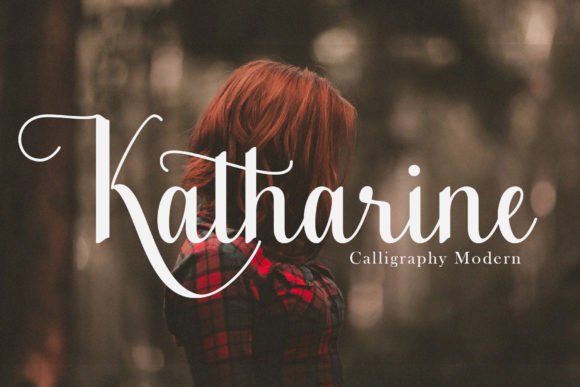
Katharine Font: Elevate Your Creative Projects with Elegance
In the world of typography, few fonts manage to capture the essence of elegance and creativity as effectively as the Katharine Font. This magical handwritten font has been carefully crafted to bring a touch of sophistication to any project, making it an ideal choice for those looking to elevate their creative endeavors. Whether you’re a social media enthusiast seeking fonts for Instagram or a DIY enthusiast in search of calligraphy scripts, Katharine Font is designed to transform your ideas into true pieces of art.
The Story Behind Katharine Font
The Katharine Font is more than just a collection of letters; it’s a tool for self-expression. Its creation was inspired by the desire to produce a font that combines elegance with a personal touch. The result is a typeface that feels both luxurious and approachable, making it versatile for a wide range of applications. From professional branding to personal projects, Katharine Font offers the perfect blend of style and functionality.
Key Features of Katharine Font
1. Elegant Handwritten Style
Katharine Font boasts an elegant handwritten style that adds a personal and sophisticated touch to any text. Its fluid strokes and graceful letterforms make it stand out in a sea of digital content.
2. Versatility
One of the key strengths of Katharine Font is its versatility. It can be used for a variety of purposes, from social media posts and personal blogs to professional branding and marketing materials.
3. Easy to Read
Despite its elegant and artistic nature, Katharine Font remains highly legible. This ensures that your message is conveyed clearly and effectively, making it suitable for both digital and print applications.
Using Katharine Font for Instagram and Social Media
In today’s digital age, standing out on social media platforms like Instagram is crucial. The Katharine Font can help you achieve this by adding a touch of elegance to your posts and stories. Here are some ways you can use Katharine Font to enhance your social media presence:
1. Create Eye-Catching Post Captions
Use Katharine Font to craft beautiful and captivating captions for your Instagram posts. Its elegant style will make your content more engaging and visually appealing.
2. Design Stunning Stories
Instagram stories are a great way to connect with your audience. With Katharine Font, you can create visually stunning stories that reflect your personal or brand aesthetic.
3. Enhance Your Brand’s Visual Identity
Consistency is key to building a strong brand. By using Katharine Font across your social media platforms, you can create a cohesive and recognizable visual identity for your brand.
Katharine Font in DIY Projects
Beyond digital applications, Katharine Font can also be a valuable asset for DIY enthusiasts. Its calligraphy-like qualities make it perfect for a variety of handmade projects. Here are some ideas:
1. Handmade Cards and Invitations
Add a personal touch to your greeting cards and invitations with Katharine Font. Its elegant style will make your creations feel more special and thoughtful.
2. Customized Home Decor
From wall art to personalized banners, Katharine Font can be used to create beautiful and unique home decor items. Its elegant style will add a touch of sophistication to any room.
3. Journaling and Scrapbooking
For journaling and scrapbooking enthusiasts, Katharine Font offers a beautiful way to add titles, captions, and journaling to your pages. Its artistic style will enhance your creative projects and make them more visually appealing.
Tips for Getting the Most Out of Katharine Font
To fully leverage the potential of Katharine Font, consider the following tips:
1. Experiment with Colors and Textures
Don’t be afraid to experiment with different colors and textures when using Katharine Font. This will help you find the perfect combination that matches your project’s theme and aesthetic.
2. Mix and Match with Other Fonts
For added visual interest, try mixing Katharine Font with other complementary fonts. This can create a dynamic and engaging look, especially in digital and print designs.
3. Pay Attention to Font Size and Spacing
To maintain readability, pay attention to font size and spacing. Ensure that your text is large enough to be easily read, and adjust the spacing between letters and lines as needed.
Katharine Font is a versatile and elegant handwritten font that can elevate any creative project. Whether you’re looking to enhance your social media presence, create stunning DIY projects, or simply add a touch of sophistication to your designs, Katharine Font is an excellent choice. Its combination of elegance, versatility, and readability makes it a valuable asset for creatives and professionals alike. So why wait? Explore the possibilities of Katharine Font today and turn your creative ideas into true pieces of art.